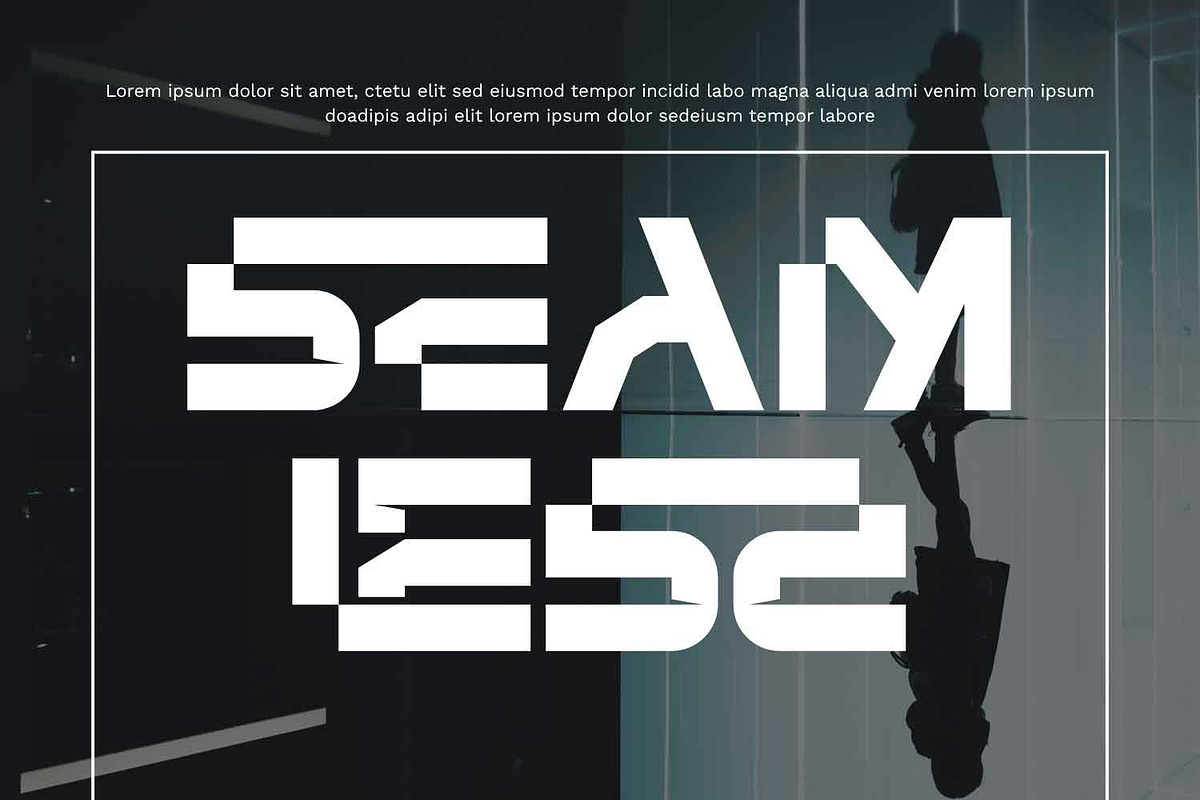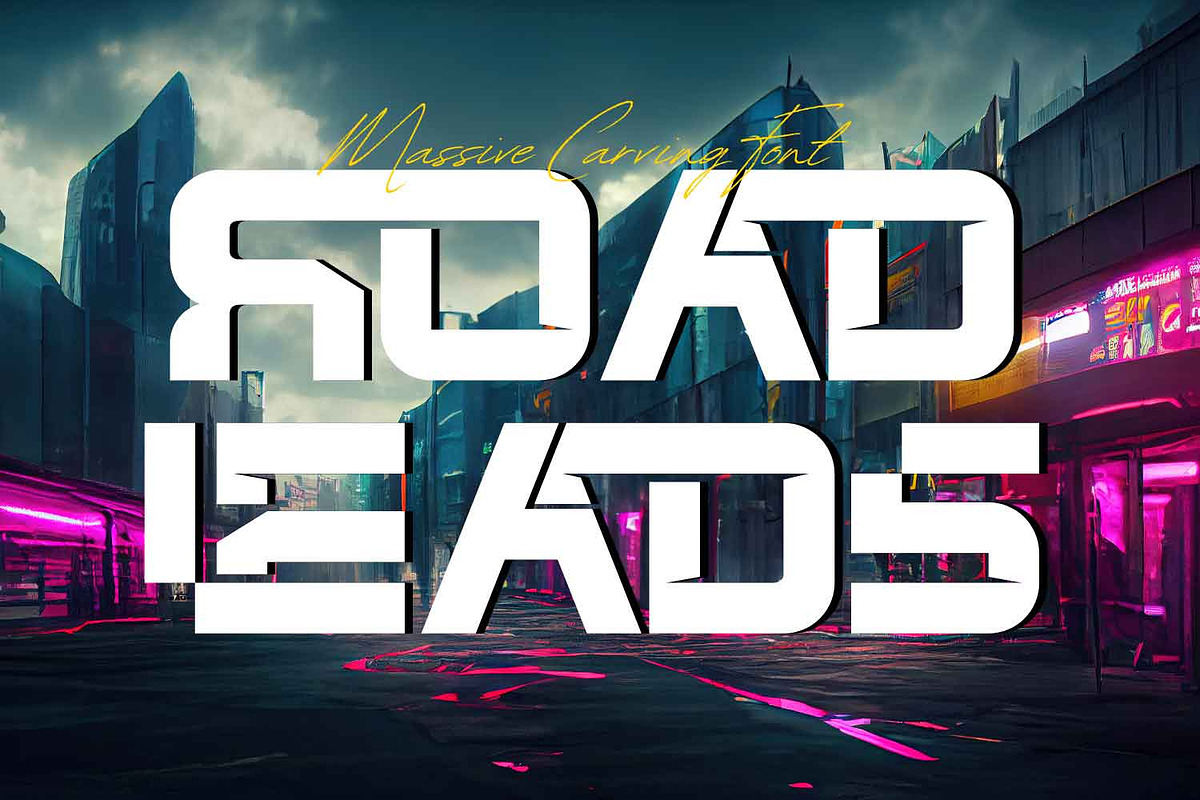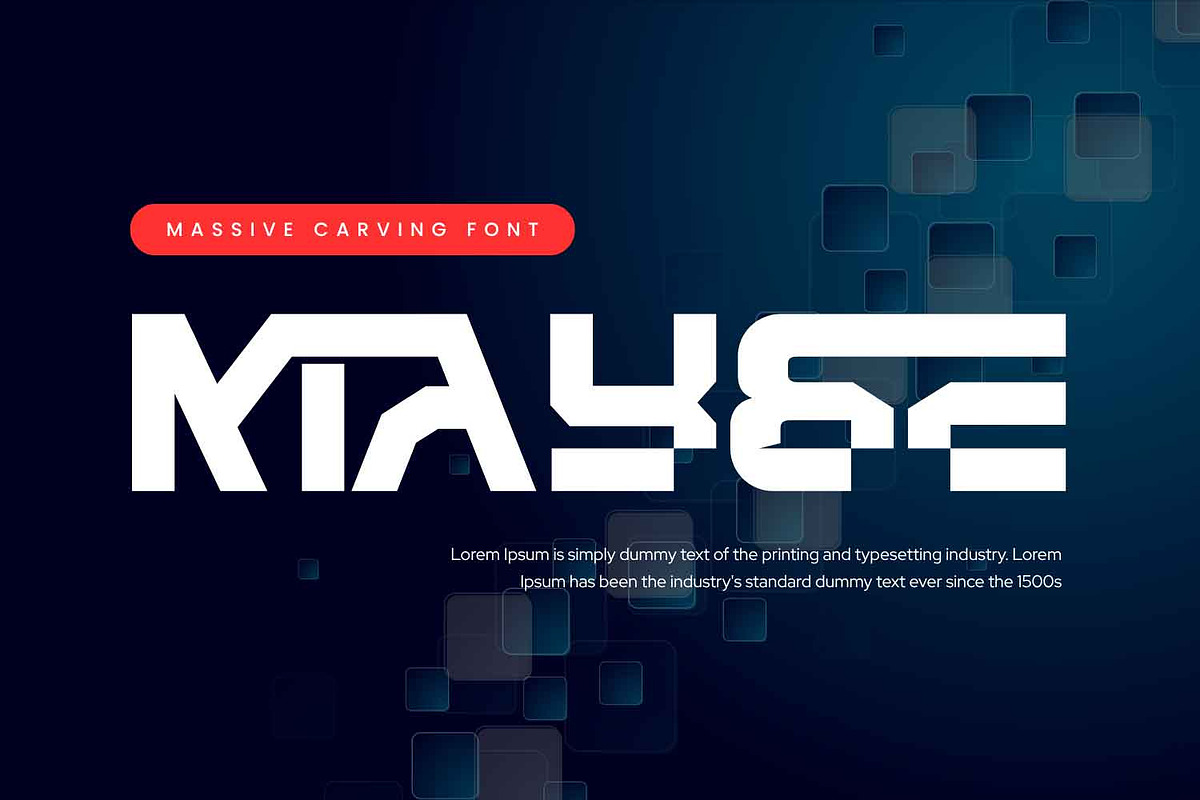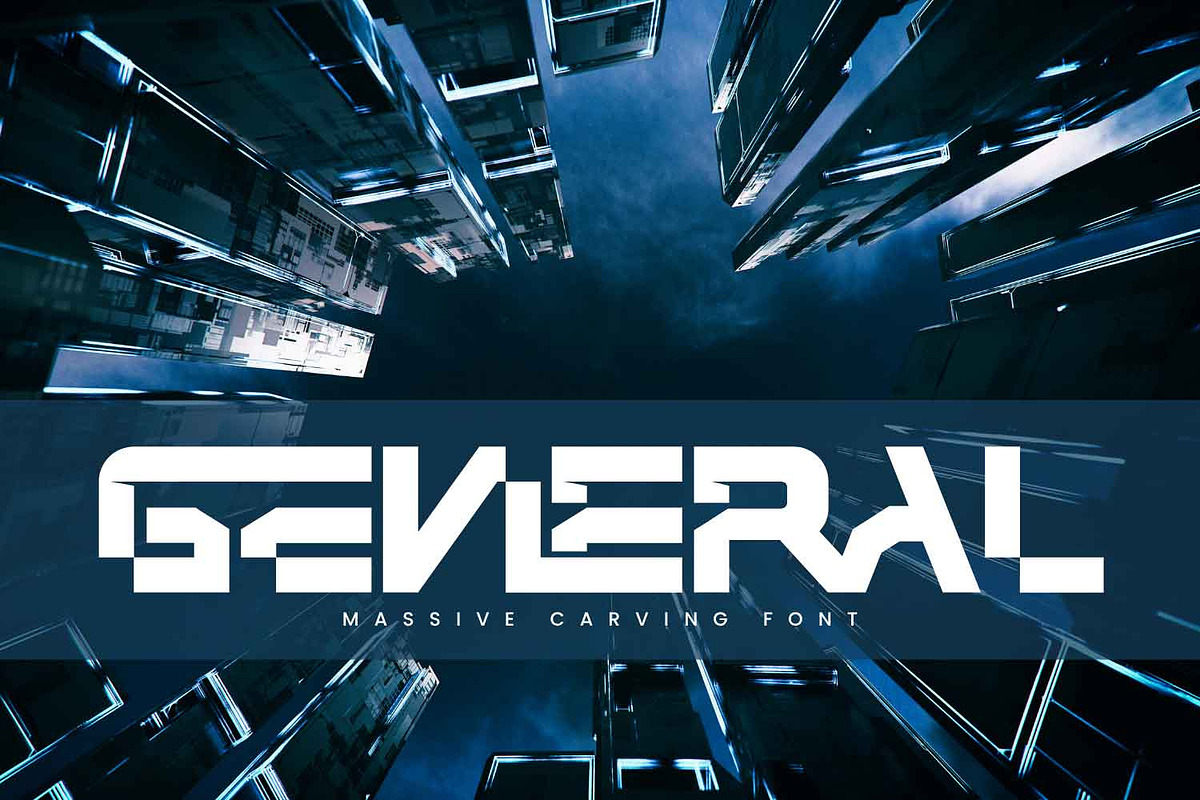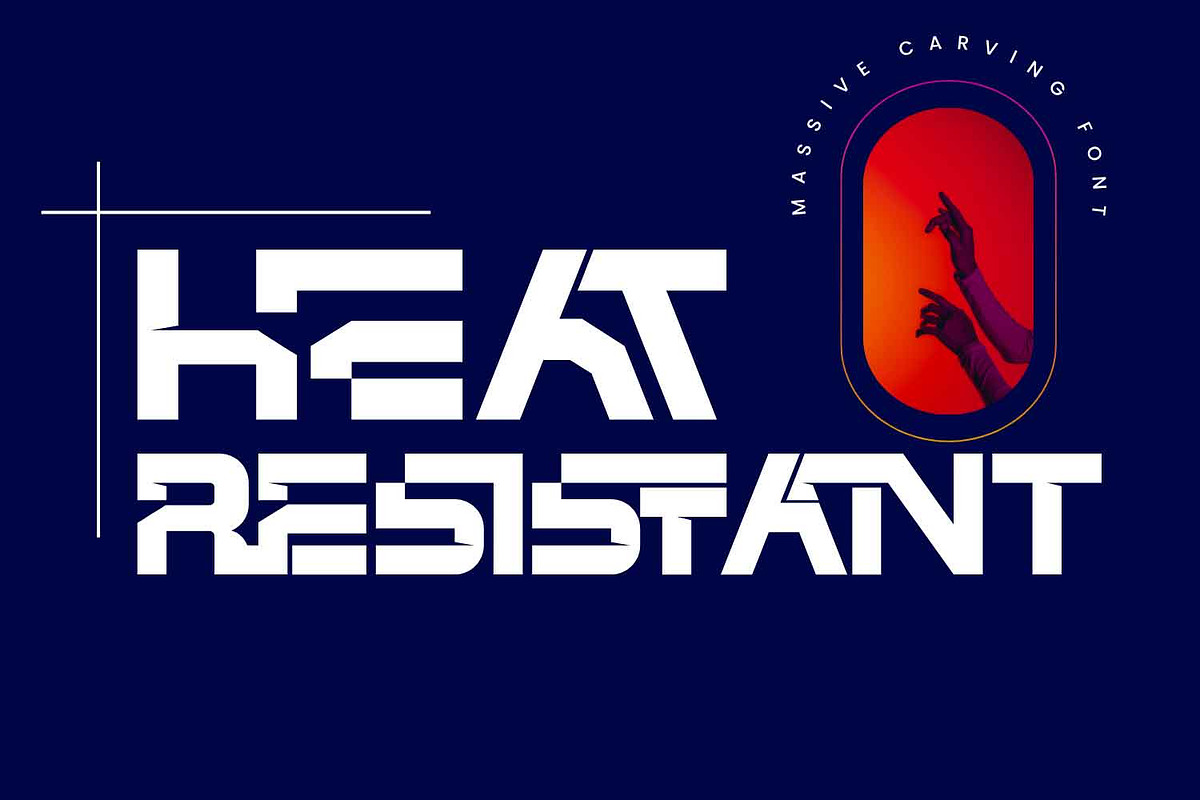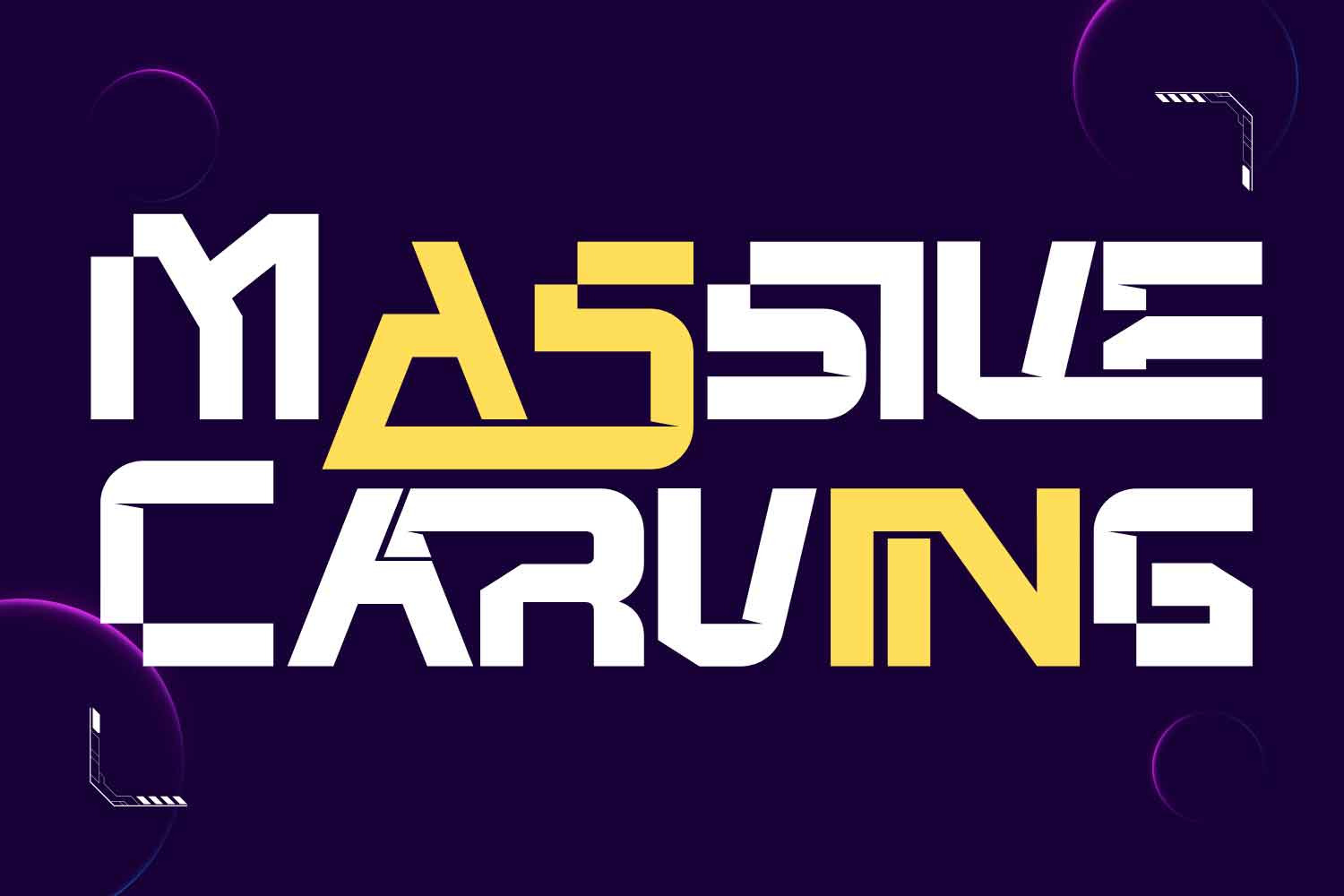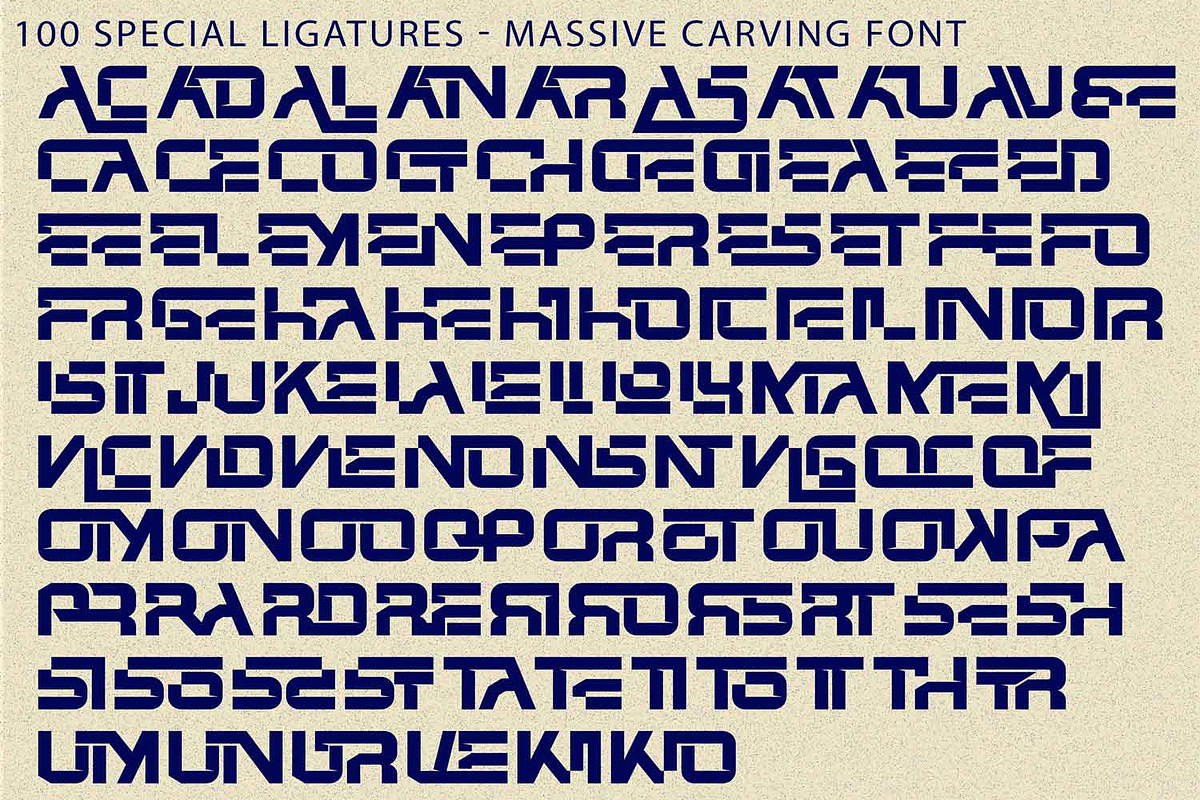
Massive Carving - Futuristic Font
Massive Carving - Futuristic Font is a bold futuristic display sans-serif font built with a strong geometric structure and sharp angular cuts. Designed with a modern tech-inspired aesthetic, this typeface delivers a powerful and dynamic visual presence that stands out in any composition. Each letter is crafted using a modular approach, combining clean lines with precise cut corners to create a sleek and mechanical feel. The unique character shapes and subtle design variations add personality while maintaining excellent readability at large sizes.
🔤Features:
Uppercase & Lowercase Letters
Around 100 Special Ligatures & Alternates
Accented Characters for multilingual support
🔤About 100 ligatures combined with Stylistic Alternates Font:
ac ad al an ar as at au av be ca ce ch co ct de di ea ec ed ee el em en ep er es et fe fo fr ge ha he hi ho ie ic il in io ir is it ju ke la le li ll lo ly ma me mi nc nd ne ng no nt ns oc of om on oo op or ot ou ow pa pr ra rd re ri ro rs rt se sh si so ss st ta te th ti to tr tt um un ur ve wi wo